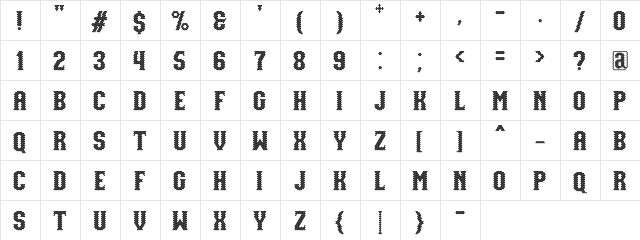
NUAZ Regular
Design Context for NUAZ Typeface
NUAZ is a composed and adaptable typeface that performs quietly and consistently across a wide range of design contexts.